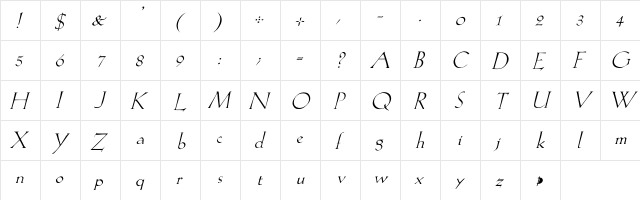
Lilith-Light iTLC Italic Font Preview
Lilith-Light iTLC Italic
Lilith-Light iTLC Italic Font Details
Design Context for Lilith-Light iTLC Typeface
Lilith-Light iTLC takes a measured approach to typography — its balanced proportions and neutral character make it a reliable workhorse for both digital and print work. The dynamic lean of this cut emphasises speed and emphasis in any layout. Its slender proportions lend an understated elegance to any composition.